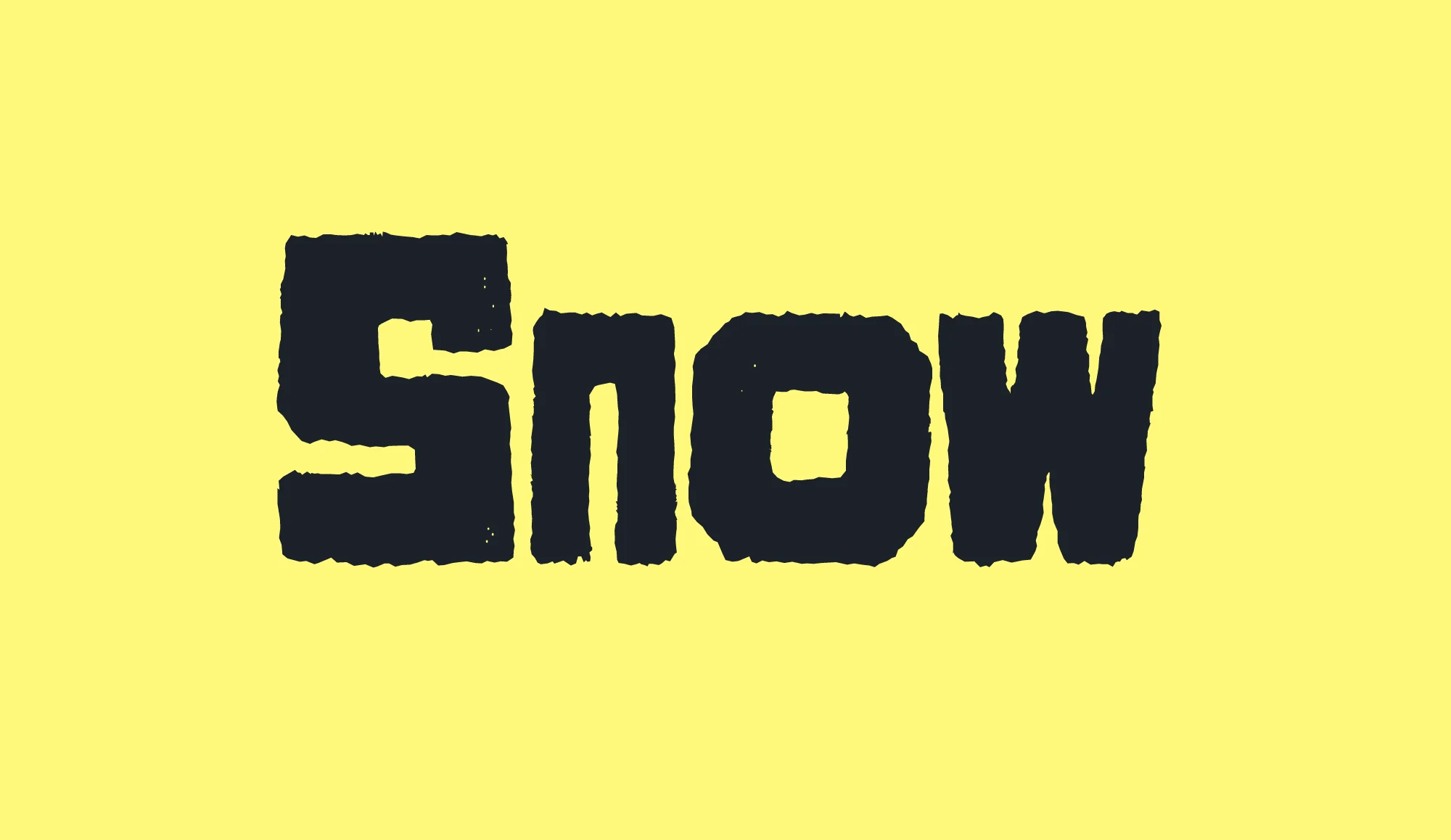
HVD Crocodile
A display typeface from HvD Fonts with insufficient public detail available to assess fully.
The foundry page was inaccessible at time of writing, blocked by Cloudflare's security layer. HvD Fonts is a German type foundry known for retail typefaces spanning display and text categories. Further detail on weights, language support and design intent could not be confirmed.
The name and foundry context suggest a display-oriented sans, likely with distinctive or expressive character; insufficient page data to classify further.